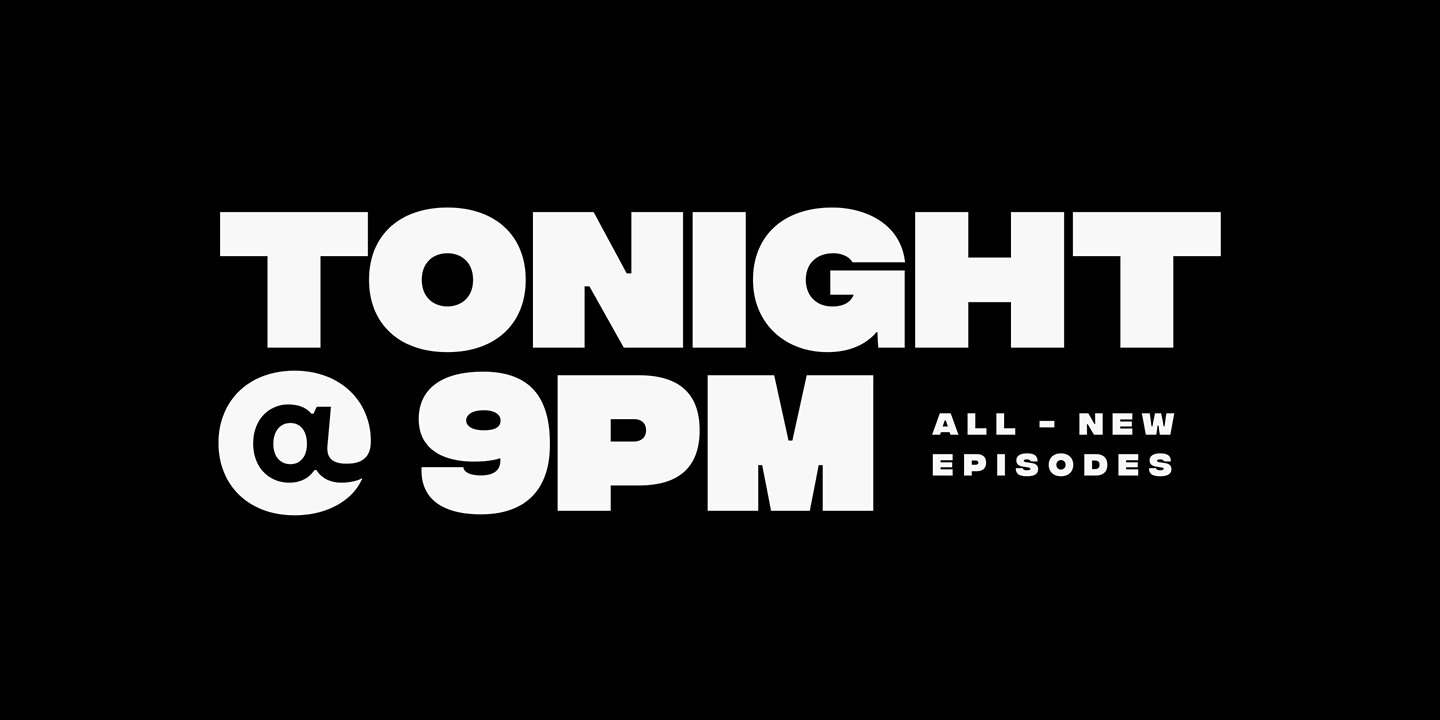
Integral lends your words a strong voice while being lot of fun to use. Integral cf is designed for maximum visual and emotional impact. Six weights excel in posters, social media, headlines, video, and print.
Hidden Among The Straight Lines And Corporate Confidence Is A Hint Of Roguish Charm And Character;
Here you will find fonts that look like integral cf. A webfont license allows you to embed the font into your website, so that it can be displayed on any browser. Hidden among the straight lines and corporate confidence is a hint of roguish charm and character;
Hidden Among The Straight Lines And Corporate Confidence Is A Hint Of Roguish Charm And Character;